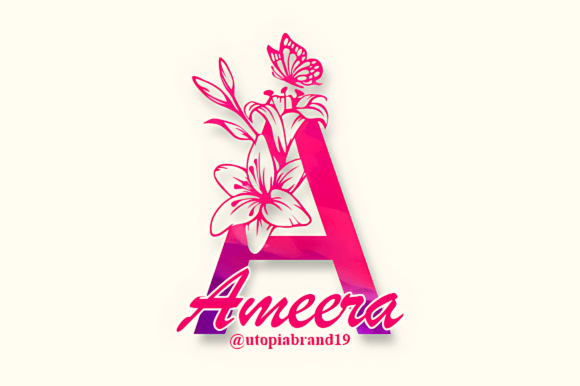
A Touch of Elegance: Unveiling the Ameera Monogram Font
Imagine you’re sitting in a quiet café, pen in hand, surrounded by the soft glow of candles and the sweet scent of freshly brewed coffee. As you begin to write a love letter to your partner, you pause for a moment to consider the perfect font to express your emotions. That’s when you stumble upon the Ameera Monogram Font – an exquisitely unique and dainty decorative font that adds a touch of romance to your written words.
This enchanting font is not just a pretty face; it’s a valuable tool for designers and writers looking to add a touch of elegance to their work. Whether it’s a wedding invitation, a cherished design idea, or a love letter, the Ameera Monogram Font brings a level of sophistication and charm that’s hard to find elsewhere.
- Unique Characteristics: The Ameera Monogram Font features intricate, hand-drawn designs with ornate details, making it perfect for creating elegant and sophisticated designs.
- Script and Language Support: The font supports a range of languages, including Latin, Arabic, and Hebrew, making it a versatile choice for global design projects.
- Number of Characters: The font includes a comprehensive set of characters, including uppercase and lowercase letters, numerals, and punctuation marks, ensuring that designers have all the tools they need to create professional-looking designs.
A Designer’s Review: Ameera Monogram Font
Overall, I was quite impressed with the Ameera Monogram Font. It has a beautiful, elegant aesthetic that would be perfect for high-end branding, weddings, or other special occasions. ✨
The font is well-designed, with a clear and precise monogram style that’s easy to read. The font family includes multiple weights and styles, making it versatile for a variety of applications. ✨
Here are some specific things that work well with the Ameera Monogram Font:
- Beautiful, elegant aesthetic
- Clear and precise monogram style
- Multiple weights and styles
- Easy to use and customize
- May not be suitable for casual or playful branding
- May require additional design work to make it stand out
- Some users may find the font too ornate or over-the-top
Overall, I would give the Ameera Monogram Font 4 out of 5 stars. It’s a beautiful font that’s perfect for high-end branding, but it may not be the best choice for every project. With some careful design and planning, it can be a real showstopper. ⚠️
Use the Ameera Monogram Font to create elegant and sophisticated designs for invitations, branding, and other materials.
Experiment with different font sizes and colors to achieve the desired look.
Combine the Ameera Monogram Font with other design elements, such as images and graphics, to create visually appealing designs.
The Ameera Monogram Font is ideal for:
Special occasion invitations and cards
Business presentations and reports
Is the Ameera Monogram Font available in different weights and styles?
Yes, the Ameera Monogram Font is available in various weights, including Light, Regular, Bold, and Black. Additionally, the font includes a range of ligatures and swashes to enhance its aesthetic appeal. You can explore the font’s features and options within your design software or by consulting the font’s documentation.